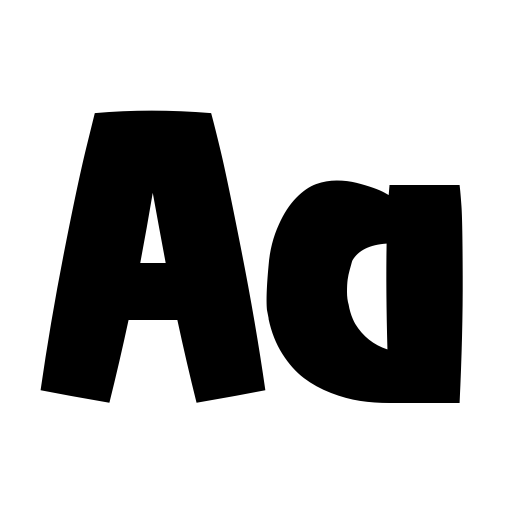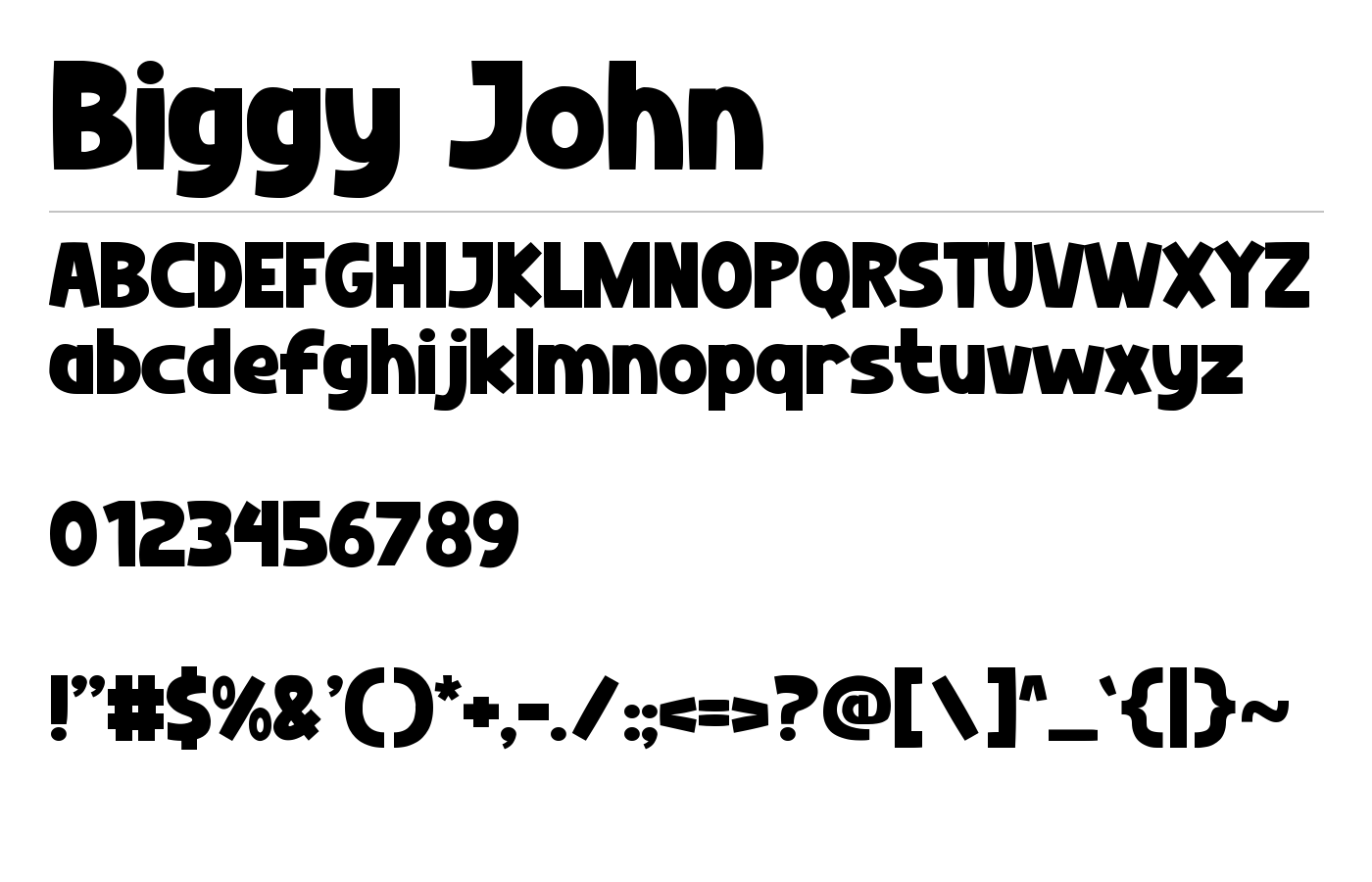
Biggy John is a bold, playful sans serif font with chunky letterforms and a slightly condensed width, giving it a strong, friendly presence. Its high x-height and uniform stroke weight create a clean, modern look perfect for attention-grabbing headlines and branding aimed at a fun, approachable vibe. This font works best in logos, posters, and packaging where a bold statement with a cheerful personality is needed.
Biggy John Font